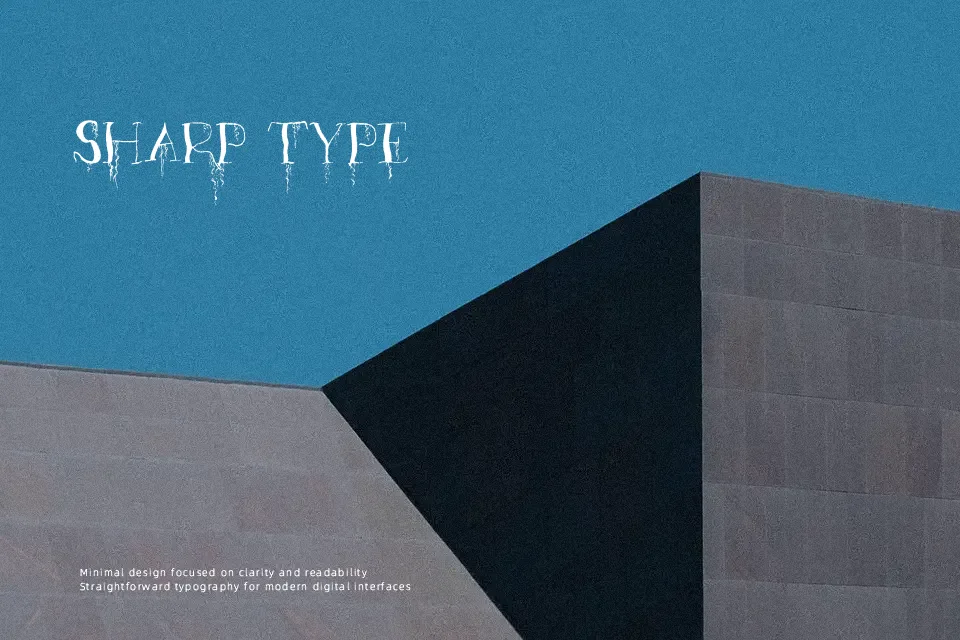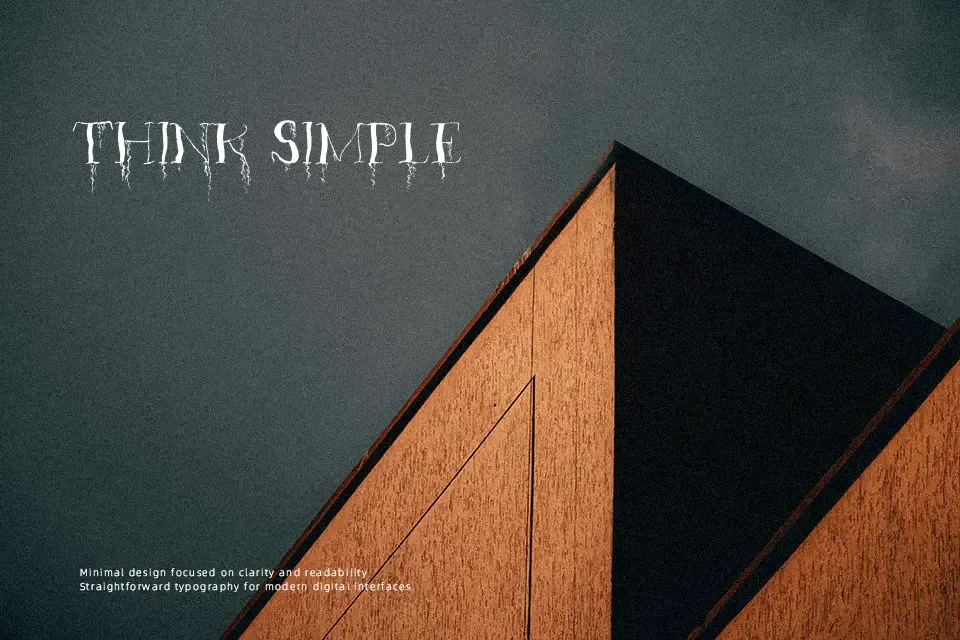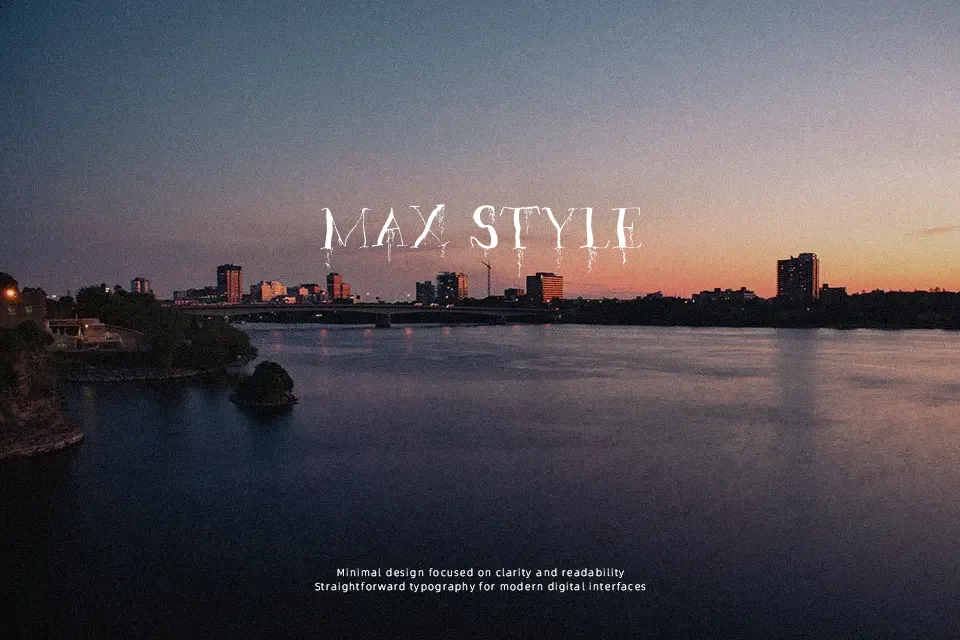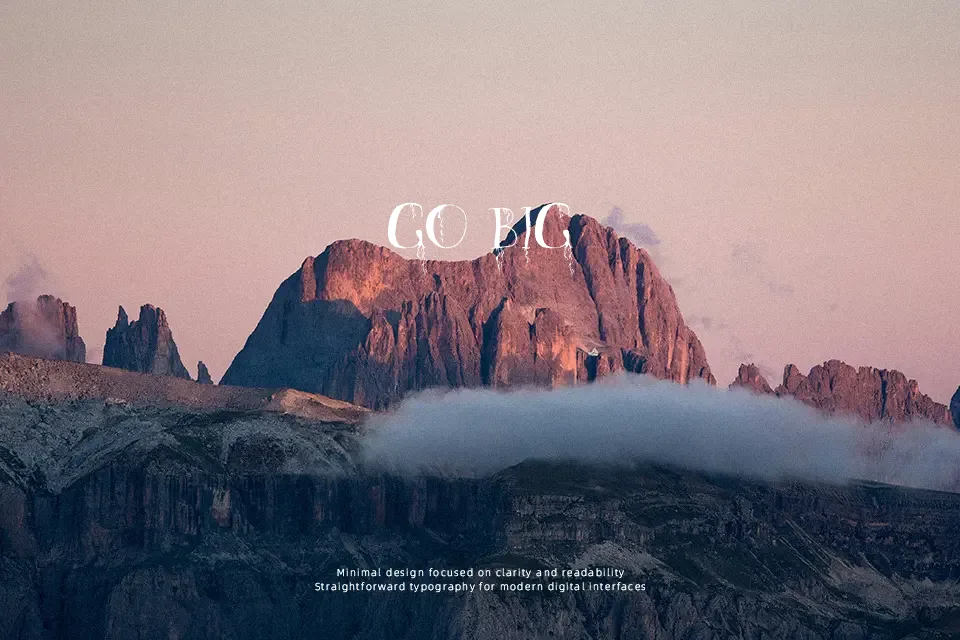
Organic Fear Font
Organic Fear Font uses uneven, distorted letterforms with rough contours and an intentionally unstable rhythm. Its heavy decorative treatment gives uppercase text a dark display presence, while the irregular shapes make individual characters more noticeable than they would be in a neutral headline face. Spacing appears best suited to short words and separated lines, where the forms have room to remain distinct. The typeface works well for ominous titles, horror graphics, and seasonal artwork. Decorative details become less effective at smaller sizes, so it is a practical choice for bold display text rather than extended reading.
Best For: Halloween posters,haunted house signage,horror film titles,dark event flyers
Perfect for advertising, film, and halloween, with a dark and decorative style.